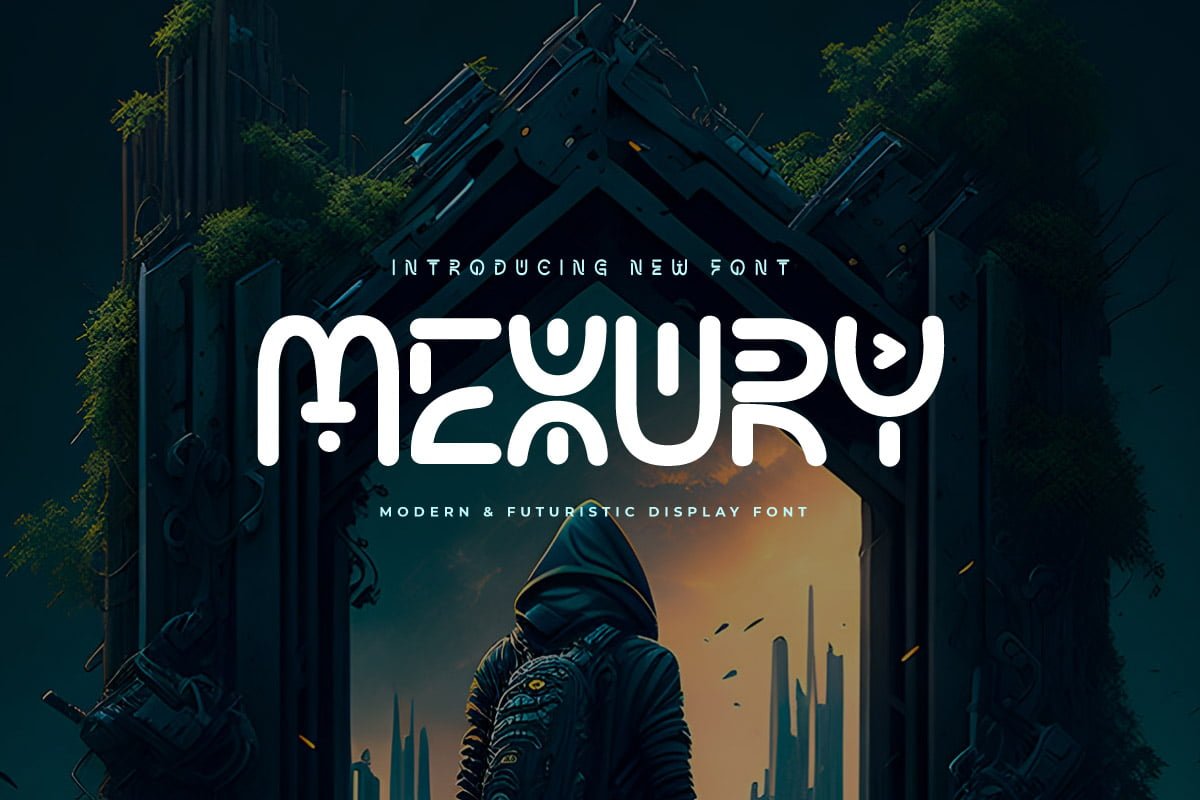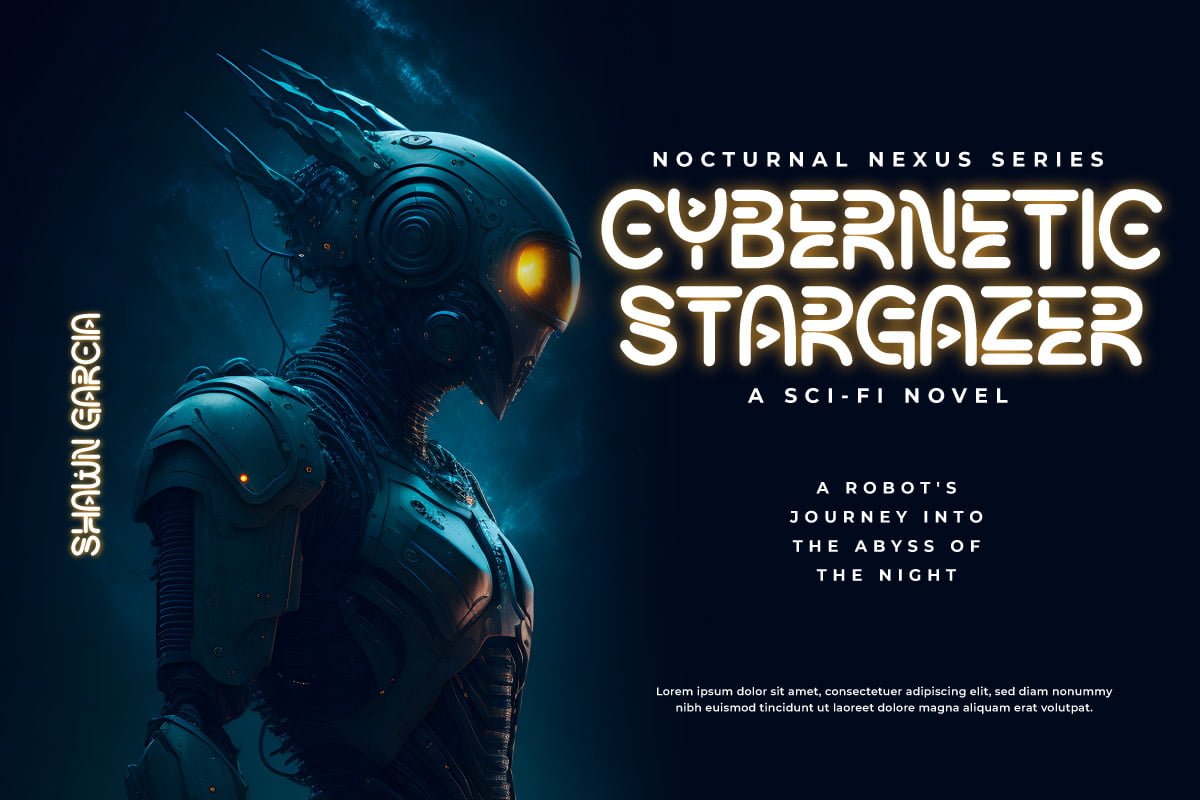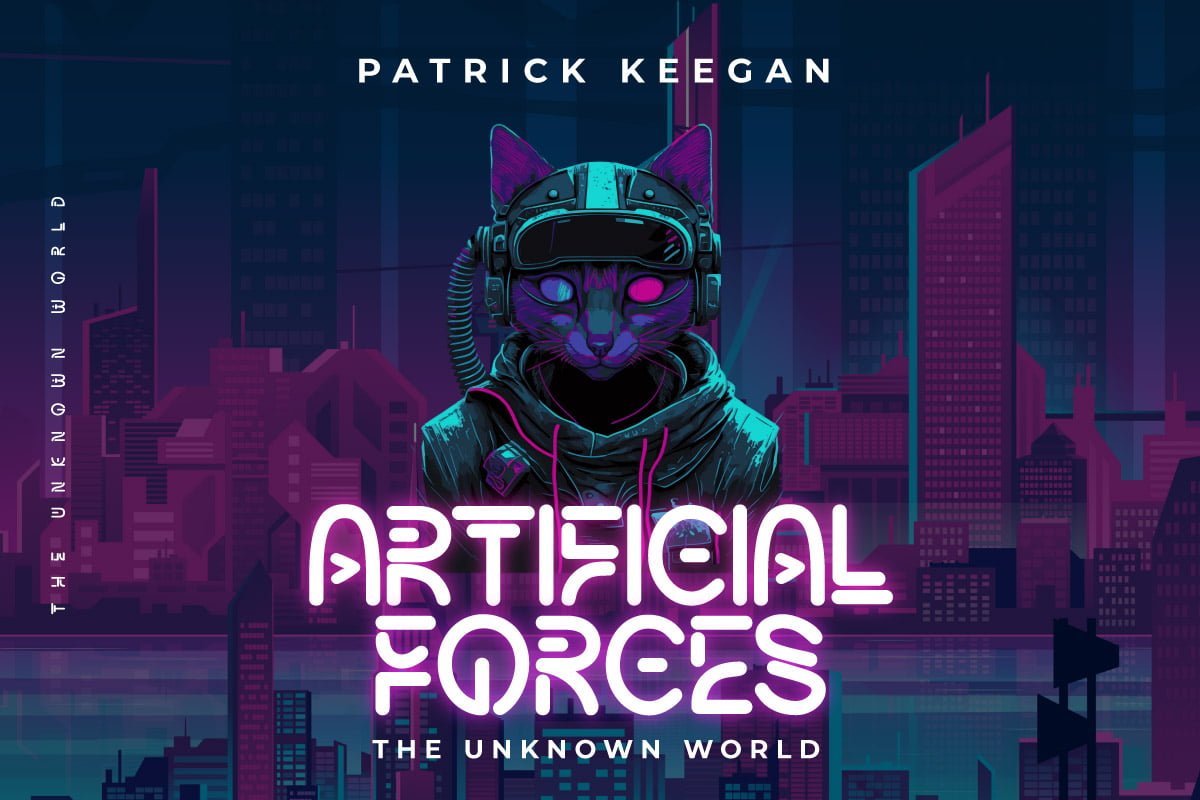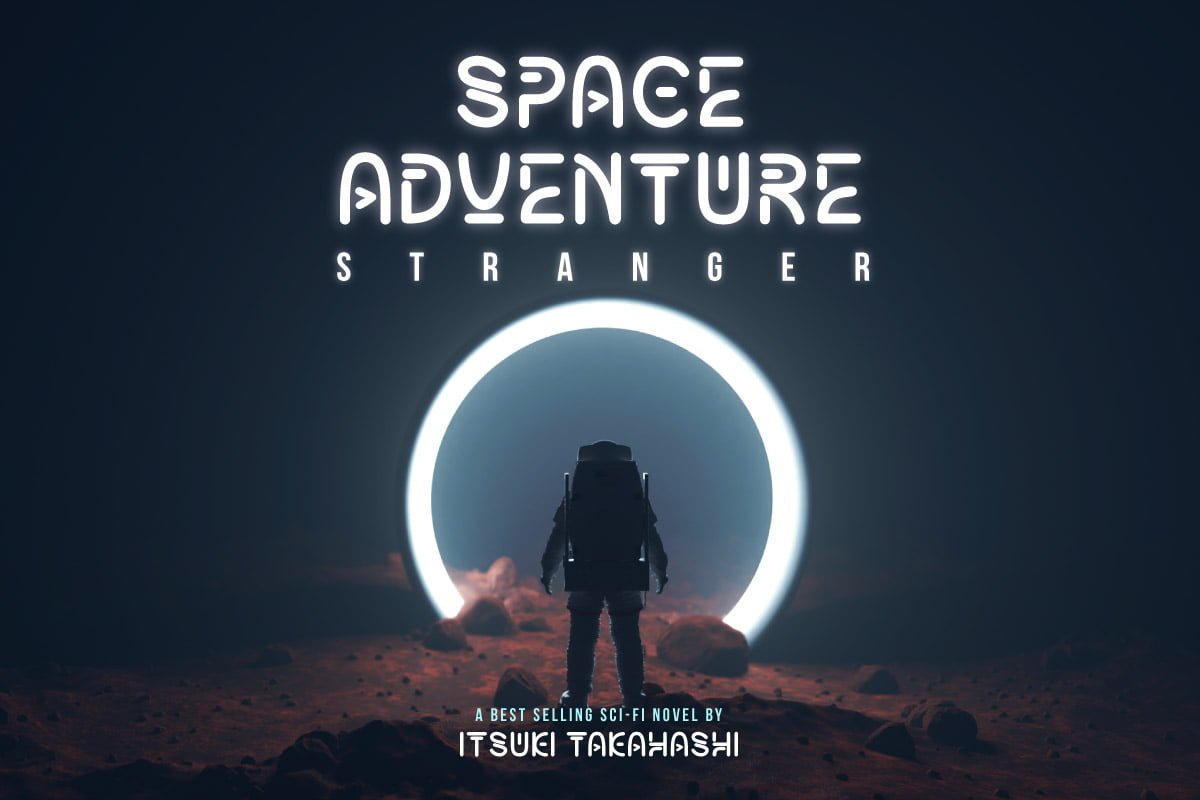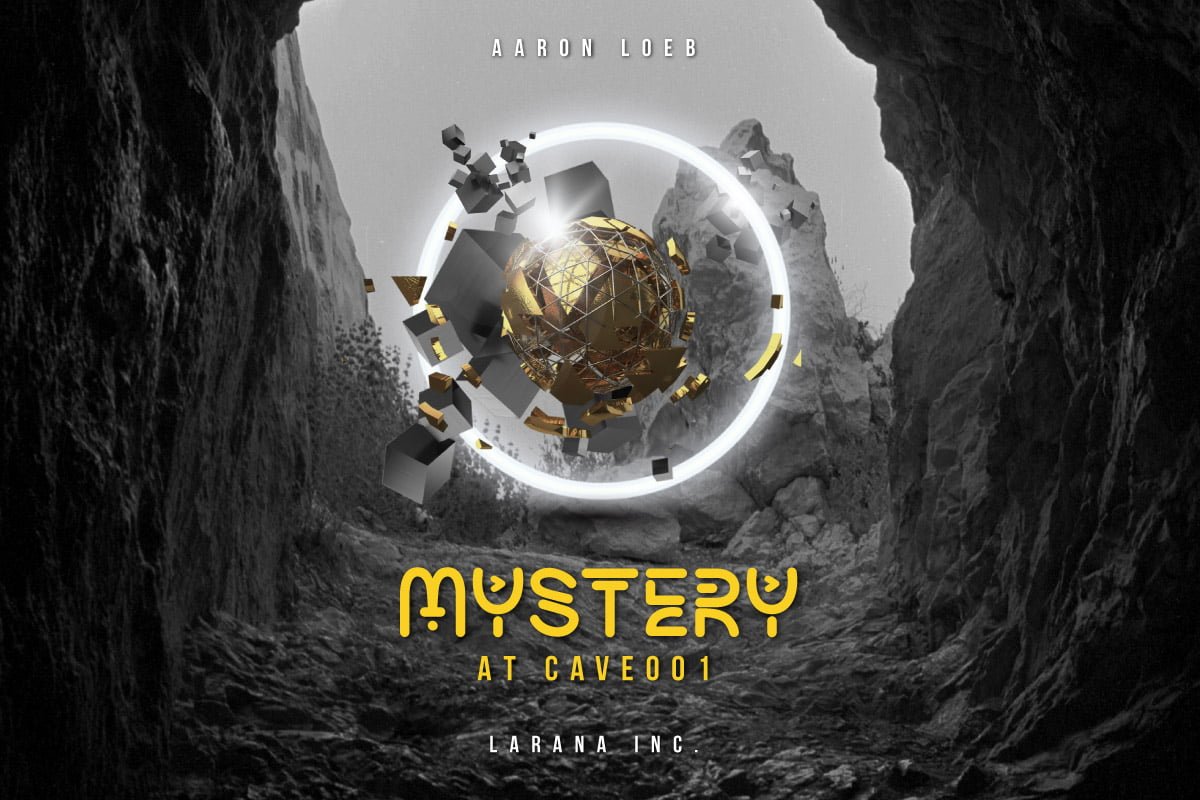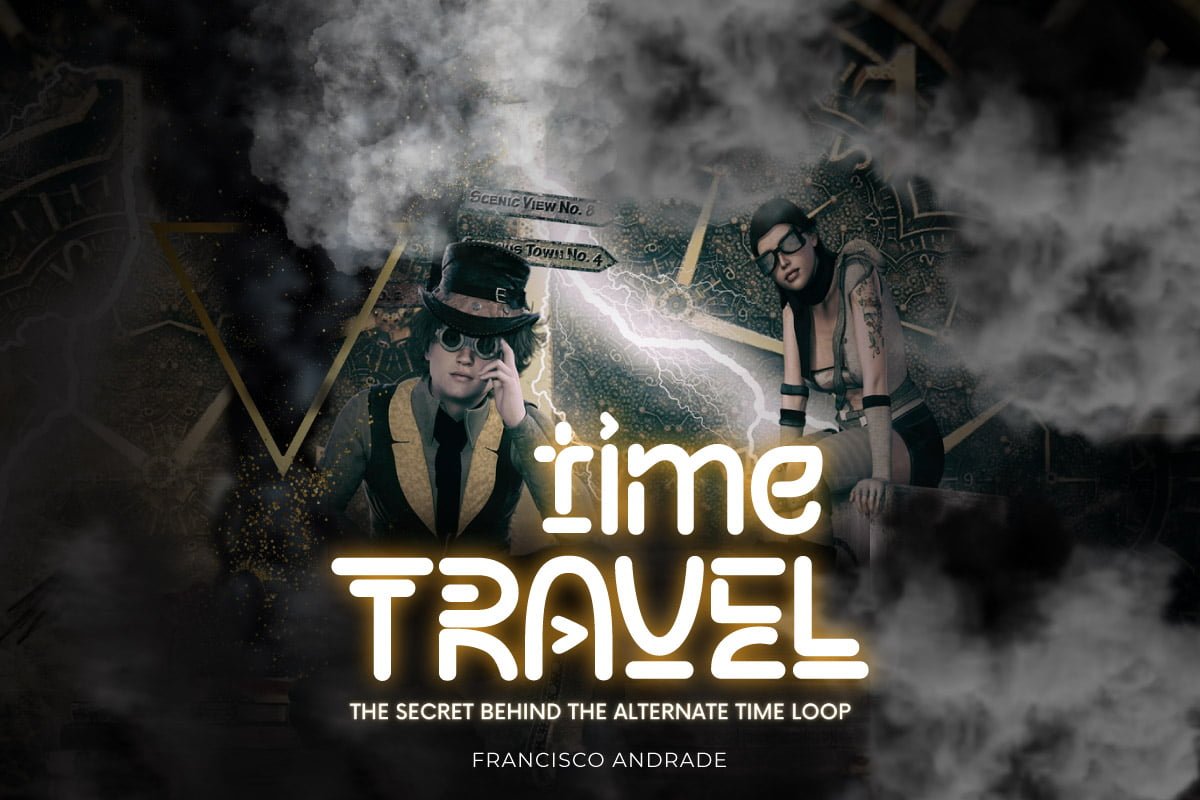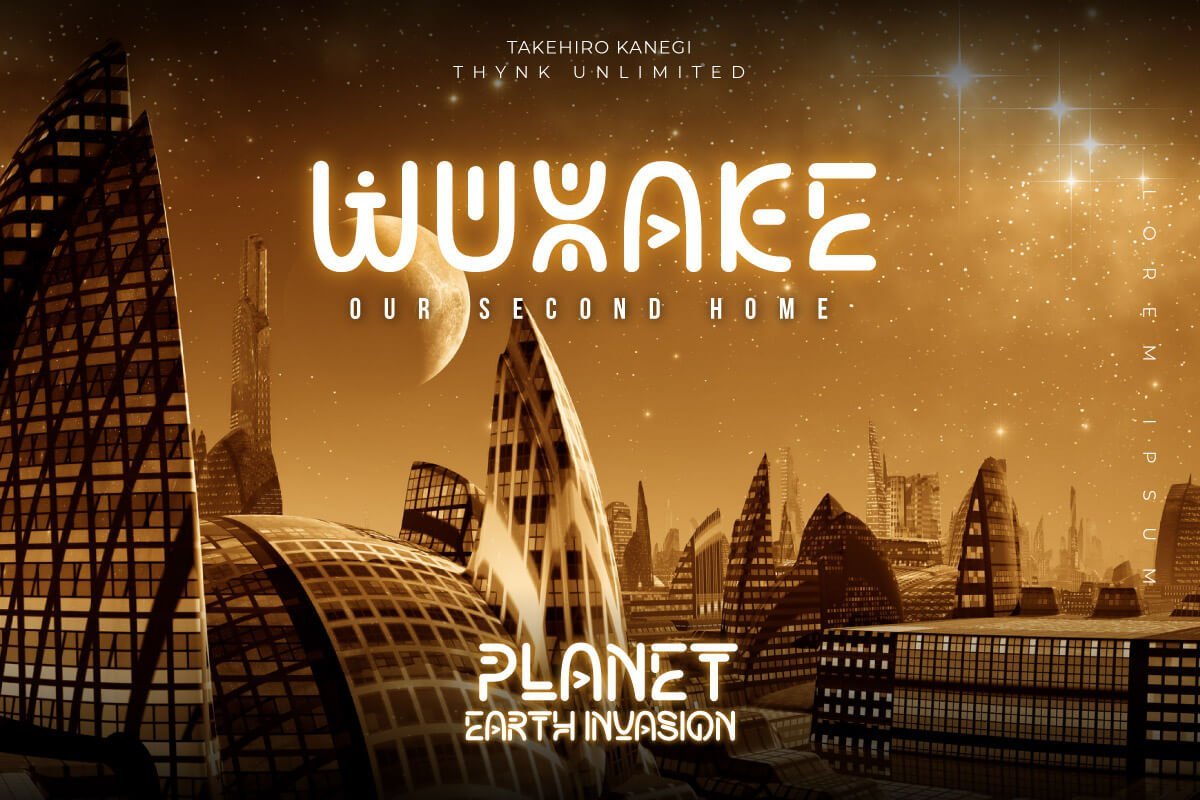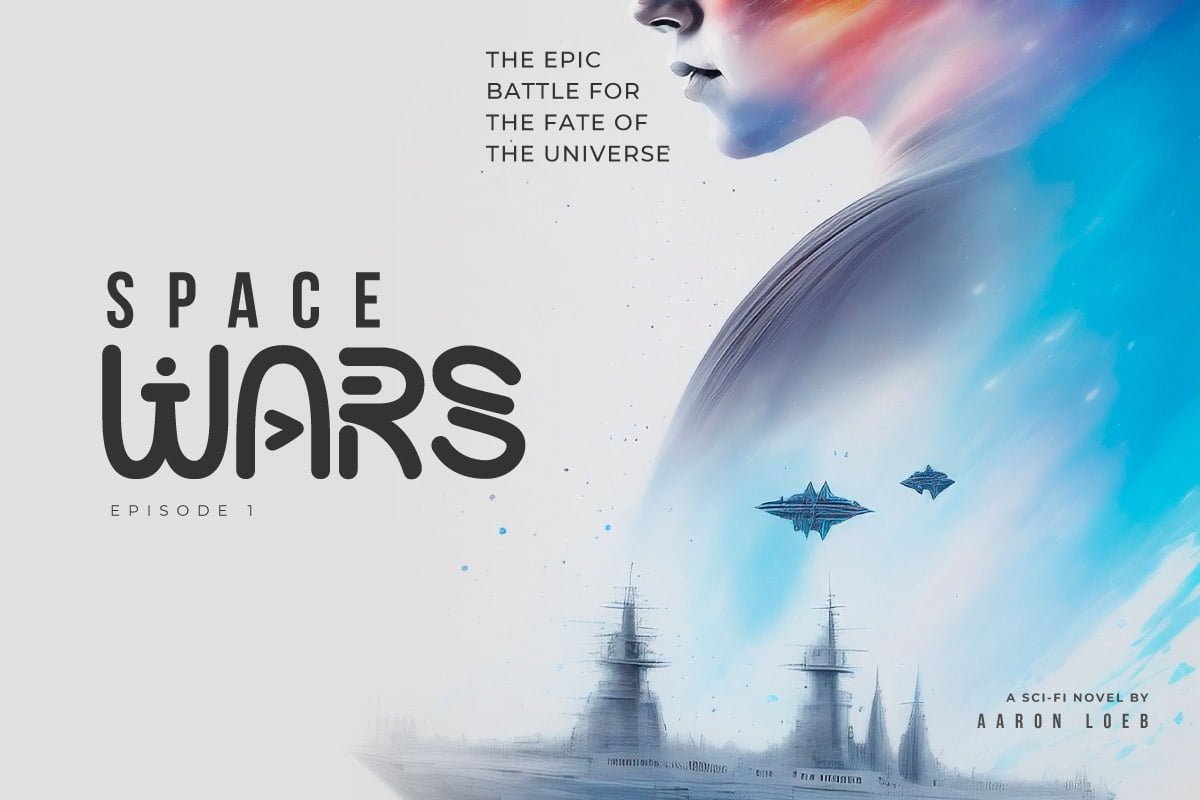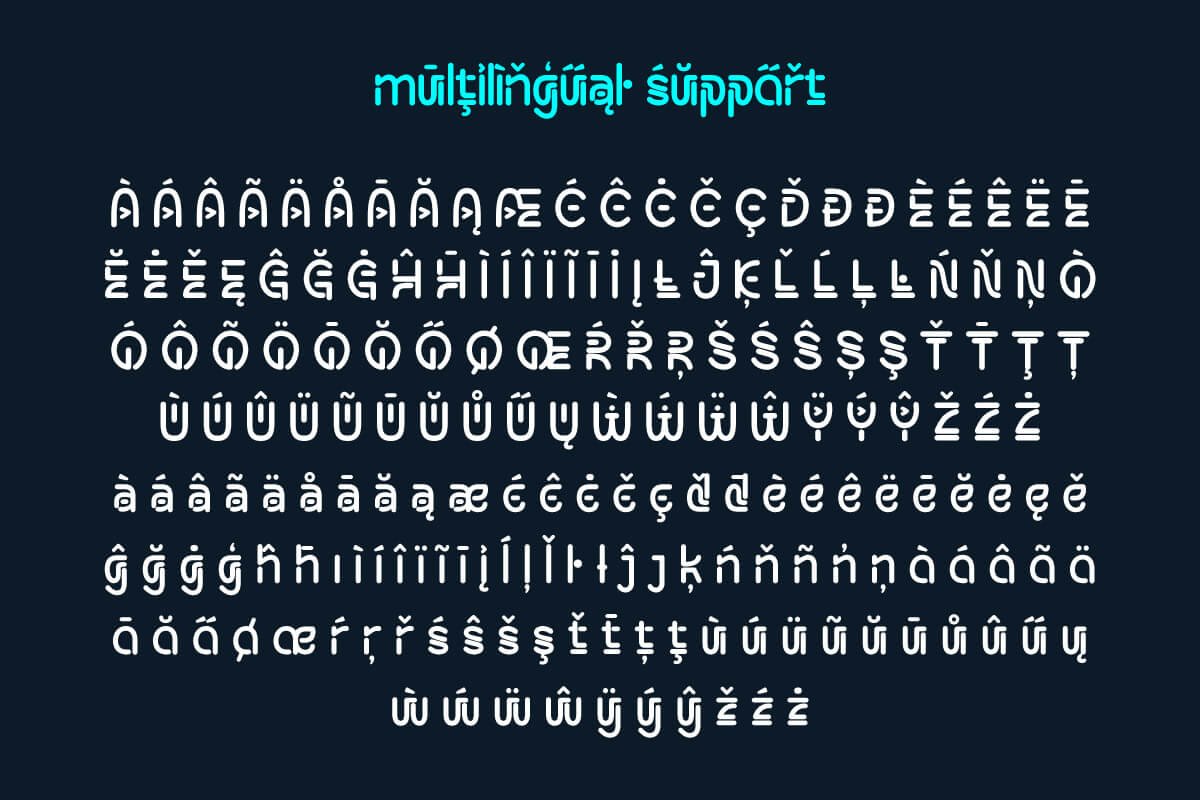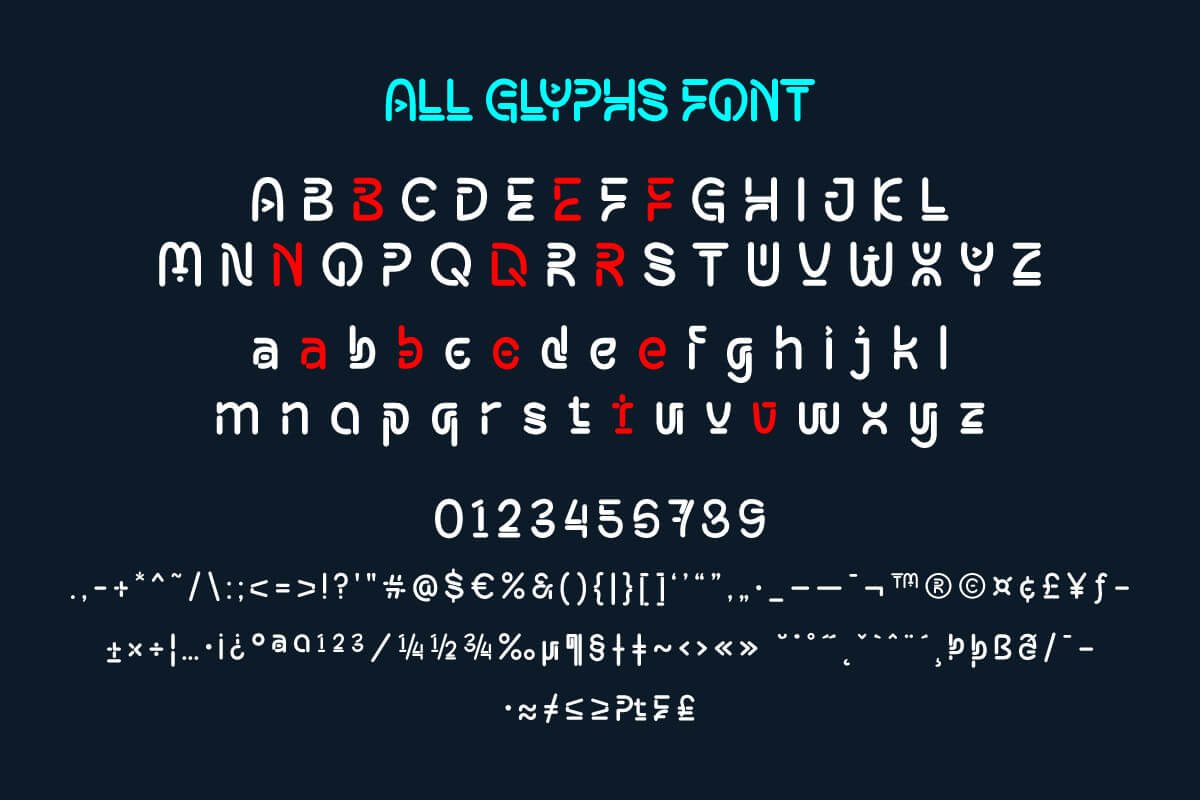
MEXURY – Futuristic Font
Welcome to Mexury, a font that transports you to the future with an alluring modern and futuristic twist. Are you looking for the perfect solution for modern, futuristic, sci-fi, and future-themed projects? Mexury is the right choice.
Mexury is a font designed to create a unique and sophisticated atmosphere. Each letter has a unique design, exuding a dazzling future and presenting an elegant look. With Mexury, your project will be in the spotlight and create an unforgettable impression.
The main benefit of Mexury is its ability to deliver stunning styles. Each letter carries great visual uniqueness, giving your project a modern, stylish, and futuristic look. Inspired designs will steal the show and capture your audience’s imagination.
Apart from that, Mexury also supports multilingualism, allowing you to display text in multiple languages without any restrictions. This flexibility ensures that you can easily reach a global audience and convey your message with consistent clarity across cultural contexts.
Take your projects to the next level with Mexury. Let this font be the catalyst for the creation of eye-catching visuals and set the scene for a future full of innovation. Explore Mexury’s limitless potential and let your creativity flourish. With this font, you’re ready to enter the futuristic and stunning world of design. Choose Mexury and let this font be the perfect choice for your vibrant, modern, futuristic, sci-fi, and future projects.
• Ligature, Alternate
• Fonts include Multilingual support